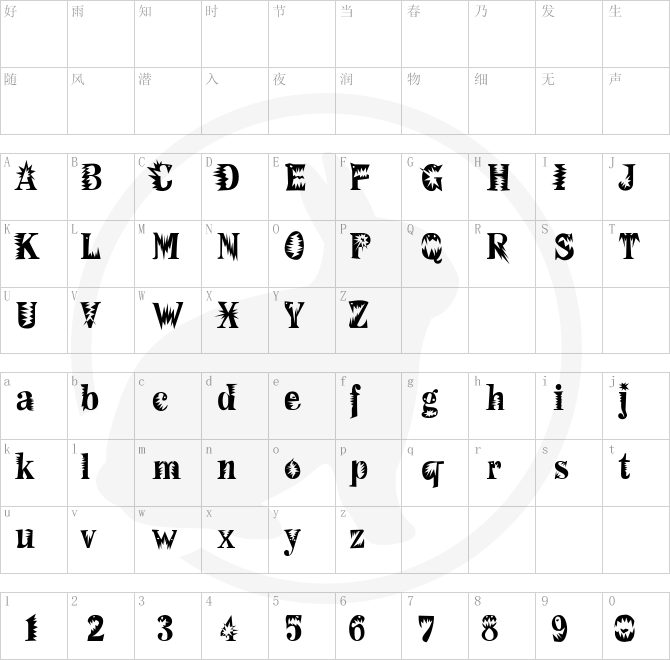
- Font Name:F2FMadZineFear
F2FMadZineFear.ttf is a very beautiful artistic font, F2FMadZineFear.ttf is widely used in the design and printing of various books and pictures,F2FMadZineFear.ttf has a strong visual impact,F2FMadZineFear.ttf is a commonly used font in newspapers, magazines and books, and is used in posters, e-commerce Poster design, store design, logo design, font design and other fields.F2FMadZineFear.